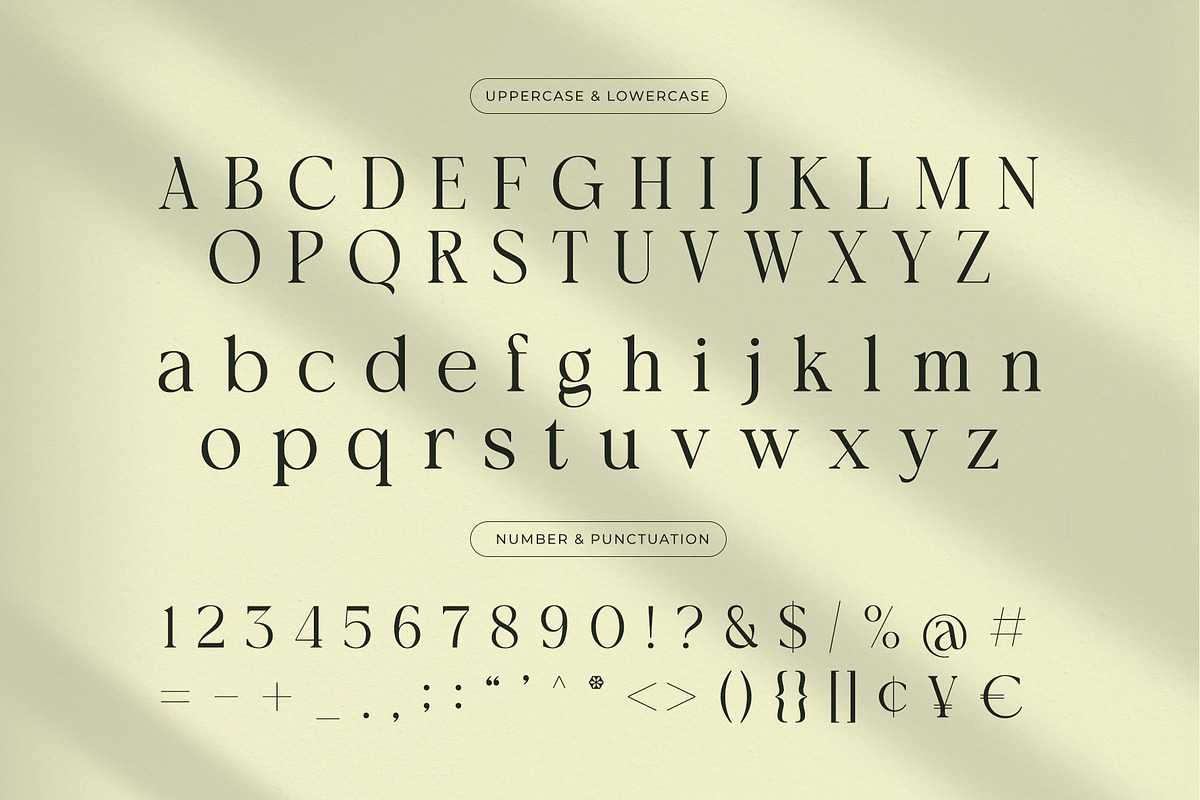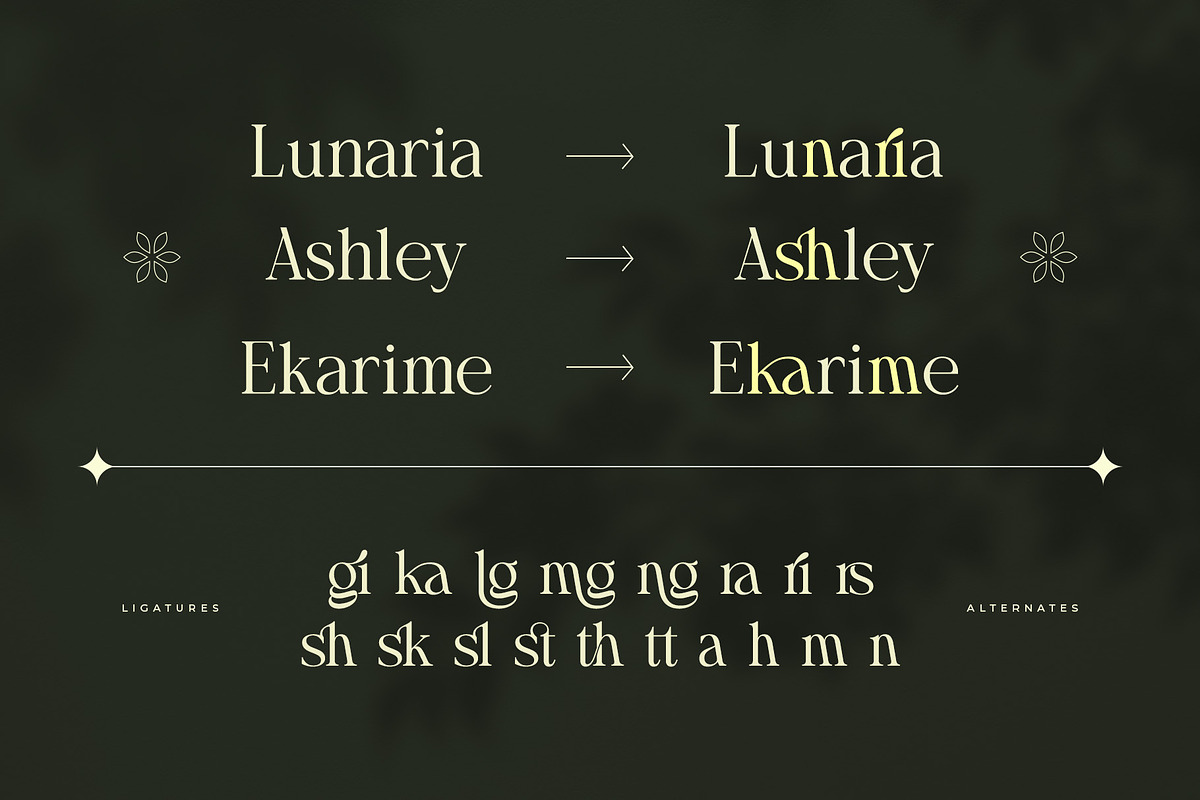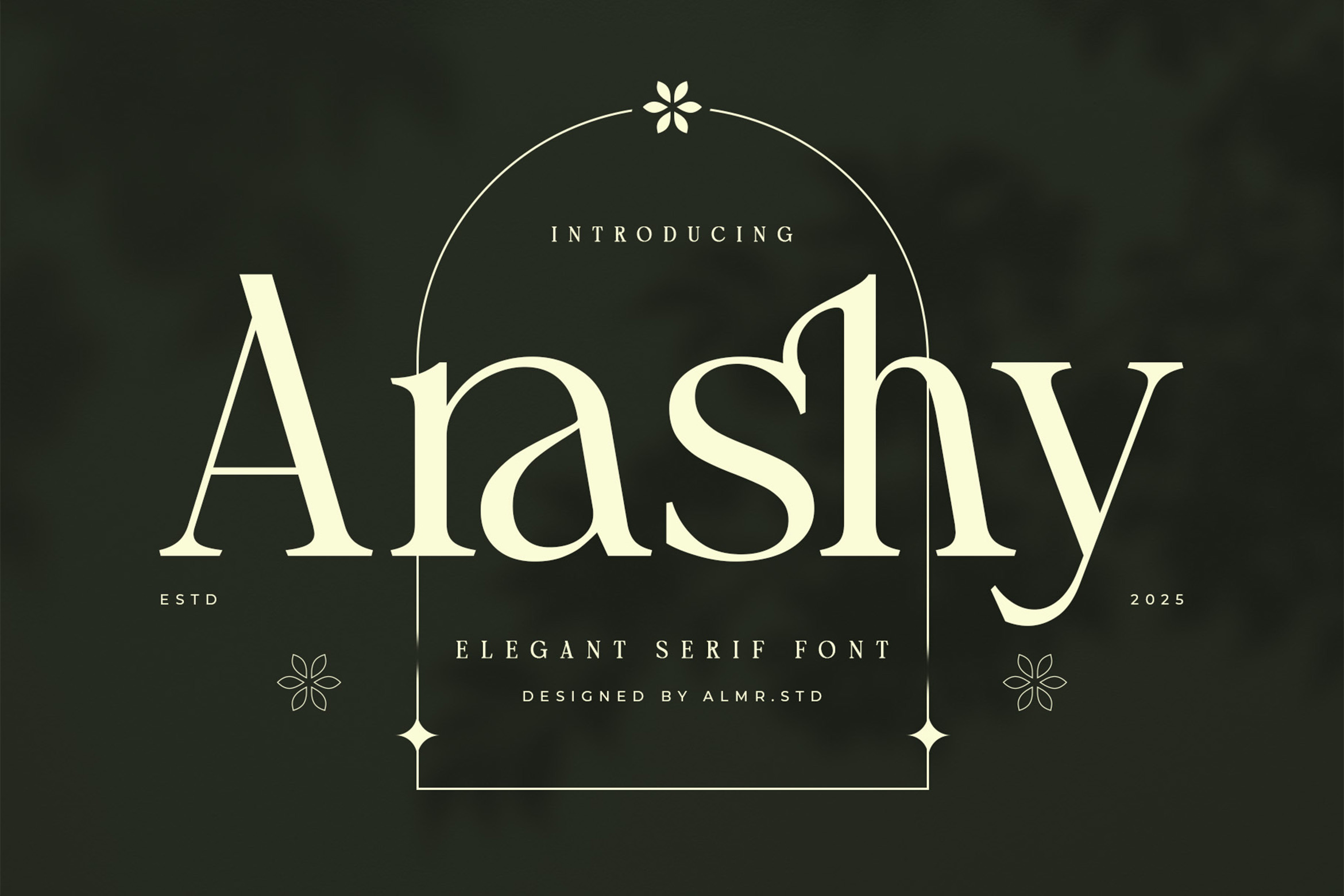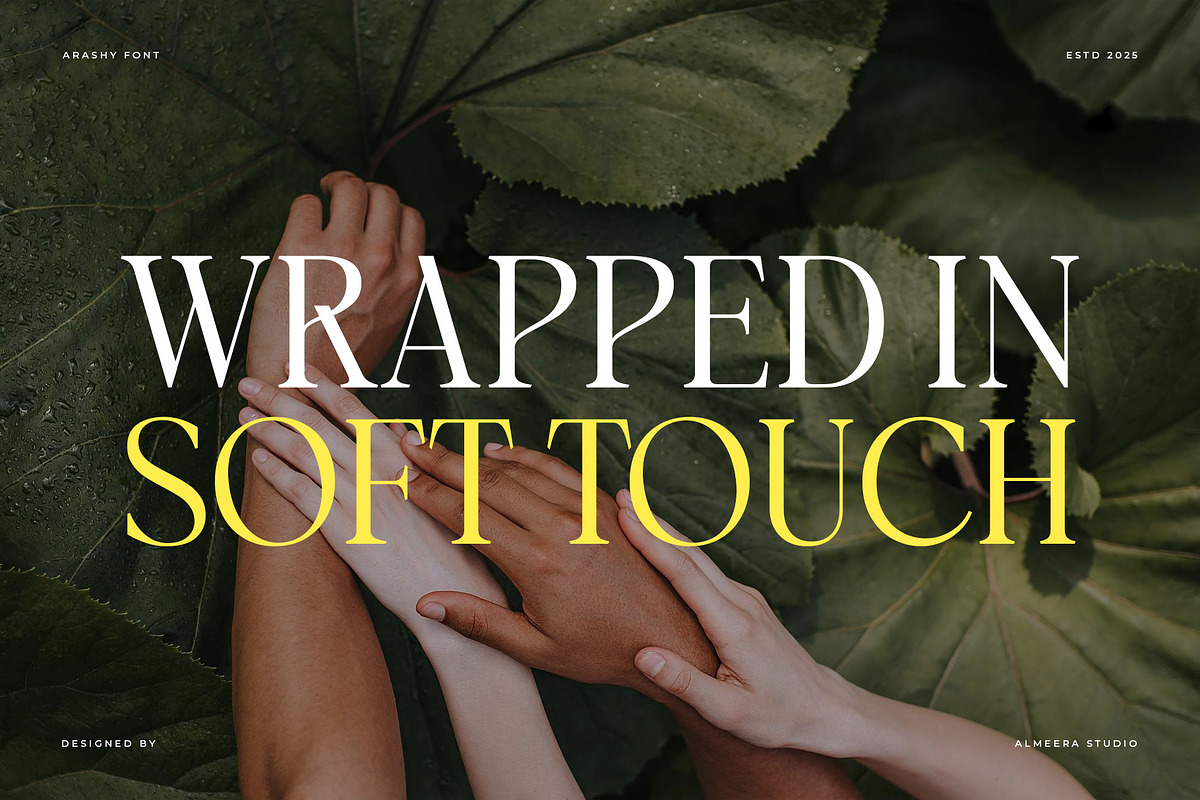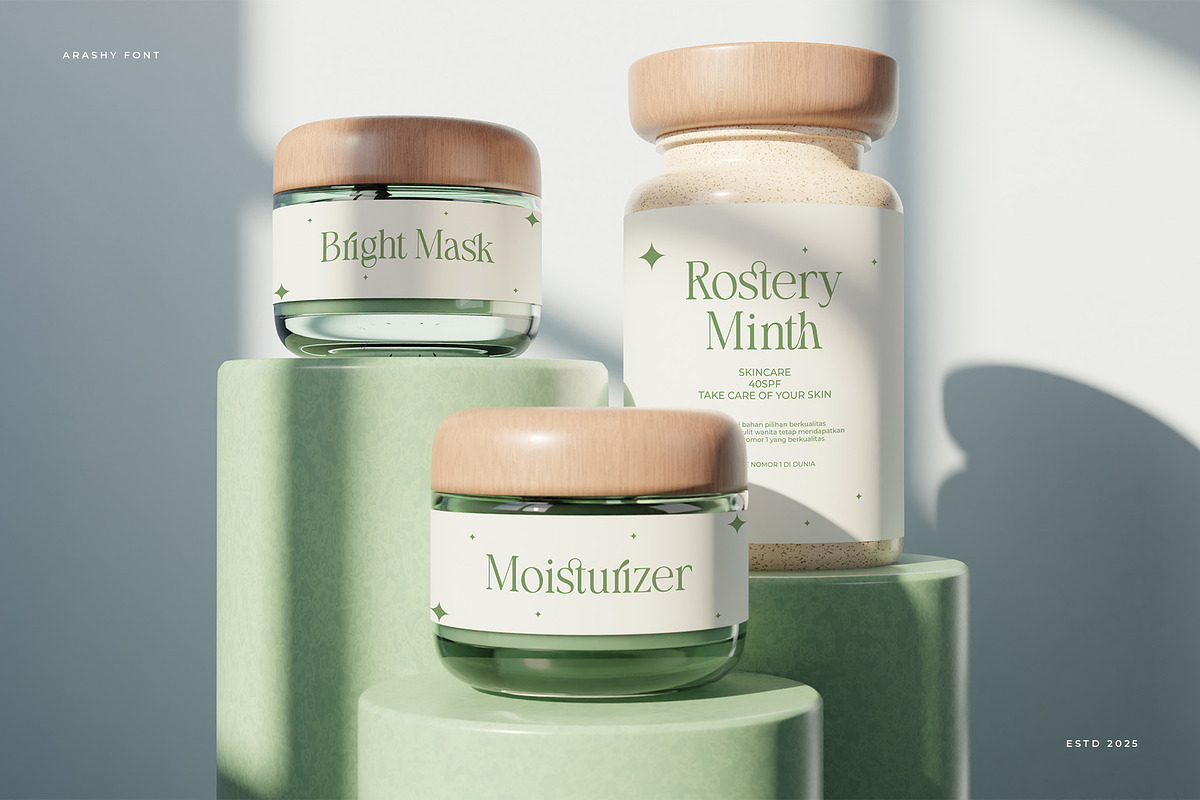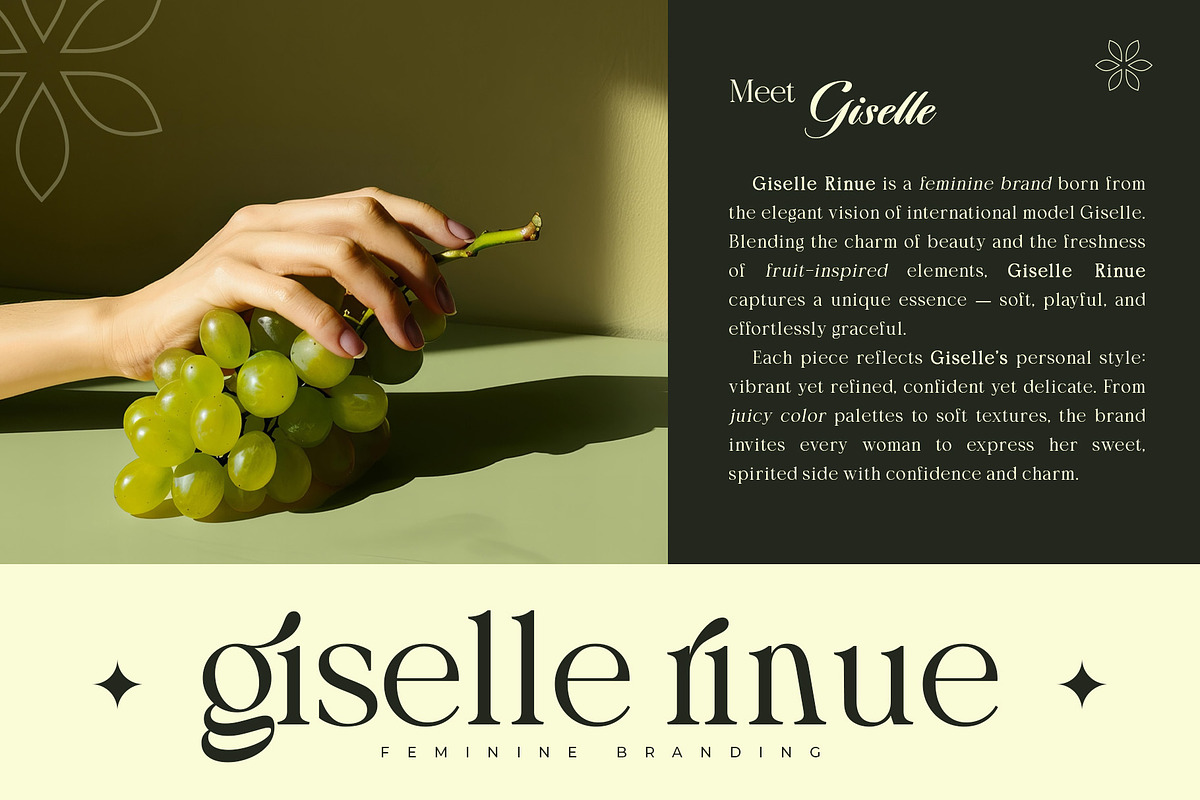
Arashy – Elegant Serif Font
Arashy is a refined and elegant serif font with graceful curves and high contrast lines. Crafted for luxury branding, editorial layouts, wedding invitations, and high-end packaging, Arashy brings a sense of delicate sophistication to every letterform. Its stylish and timeless design makes it a versatile choice for premium projects.